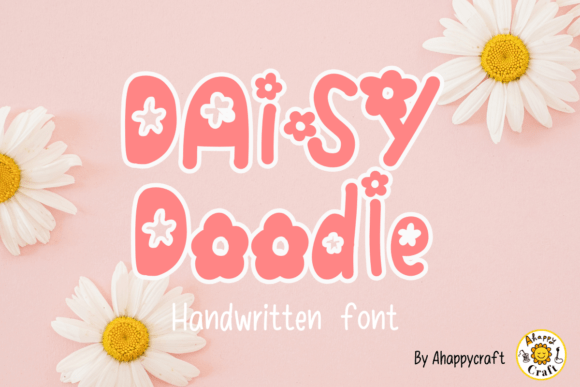
Have you ever stared at a blank page, struggling to come up with the perfect font to match your creative vision? You’ve tried the usual suspects, but nothing seems to capture the playful essence of your idea. That’s where the magic of the Daisy Doodle Font comes in – a charmingly delightful handwritten font that brings a breath of fresh air to your design projects.
Perfect for injecting creativity and joy into your work, the Daisy Doodle Font is a must-have for designers looking to add a touch of whimsy to their designs. With its comprehensive set of complete English alphabets, numbers, and symbols, you’ll have everything you need to elevate your creations to new aesthetic heights. Whether you’re a seasoned pro or just starting out, the Daisy Doodle Font is the perfect addition to your design arsenal.
Daisy Doodle Font Key Features
- Unique Characteristics: Daisy Doodle Font features a playful, whimsical design with intricate doodle-like elements, making it perfect for adding a touch of personality to your designs.
- Number of Characters: The font includes a vast character set, including uppercase and lowercase letters, numbers, punctuation marks, and special characters, ensuring you have everything you need to create professional-looking designs.
Daisy Doodle Font Review
I recently had the chance to play around with the Daisy Doodle Font, and I must say it’s a delightful addition to any design project. Here are my thoughts on what works well and what doesn’t.
- Playful and whimsical feel: The Daisy Doodle Font is perfect for creating a lighthearted and carefree atmosphere in your designs.
- High-quality glyphs: The font includes a wide range of characters, from uppercase and lowercase letters to numbers and punctuation marks.
- Customization options: You can adjust the font’s size, color, and spacing to fit your design needs.
- Limited language support: Unfortunately, the Daisy Doodle Font only supports a limited number of languages, which may be a drawback for designers working on international projects.
- Not suitable for formal designs: The font’s playful nature makes it better suited for casual or creative projects rather than formal or professional ones.
The Daisy Doodle Font is a fun and versatile addition to any designer’s toolkit. While it may have some limitations, its playful feel and high-quality glyphs make it a great choice for creative projects. With a little imagination and experimentation, you can create some truly unique and eye-catching designs using this font.
Daisy Doodle Font: A Practical Application Guide
The Daisy Doodle Font is perfect for:
1. Children’s party invitations and decorations.
2. DIY craft projects, such as handmade cards and gift tags.
3. Social media graphics and posts that require a playful, whimsical touch.
4. Wedding invitations and stationery that need a touch of romance and charm.